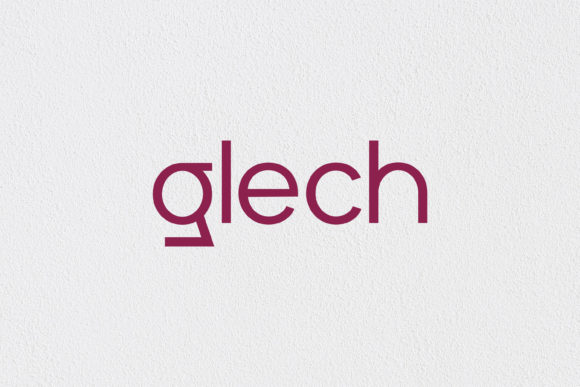
Are you yearning for a font that not only elevates your words but also resonates with the spirit of new beginnings? Look no further than Glech Font, the trailblazer in sans serif fonts, meticulously crafted by Design Stag. Glech's clean lines and contemporary allure will captivate your audience, leaving an unforgettable impression.
Glech's inherent modernity and minimalist aesthetics make it the perfect choice for web designs, logos, and any creative endeavor that demands a touch of sophistication and innovation. With Glech, you hold the power to transform ordinary text into an extraordinary visual symphony, captivating your audience with its sleek and polished style.
Step into the future with Glech Font, the embodiment of modern elegance. Experience the exhilaration of your words taking on a new life, radiating with a grace that commands attention. Glech is not just a font; it's an experience that redefines the boundaries of visual communication.